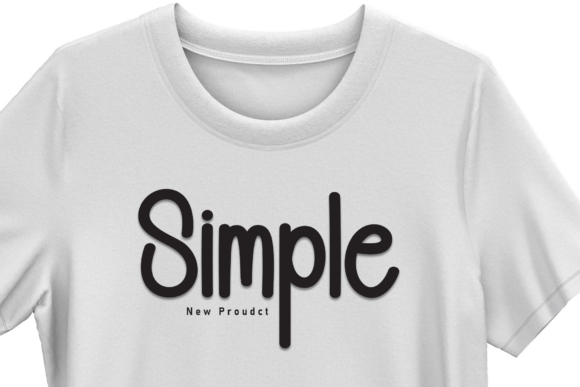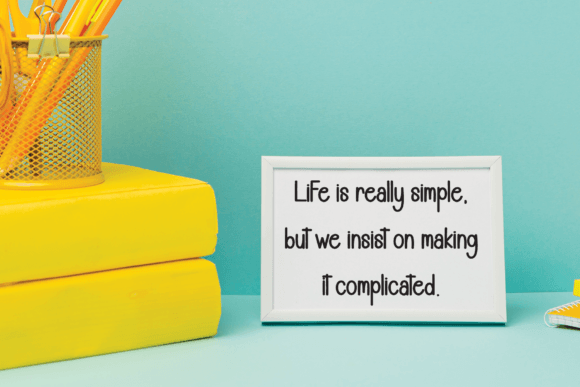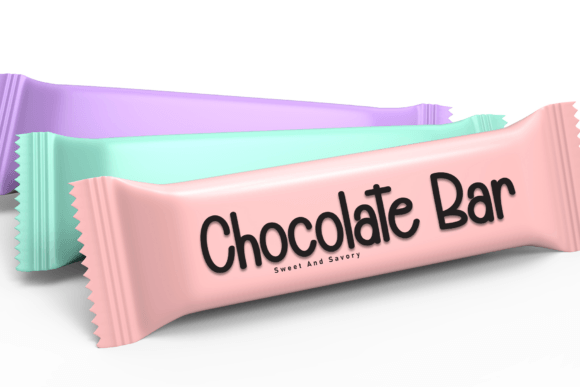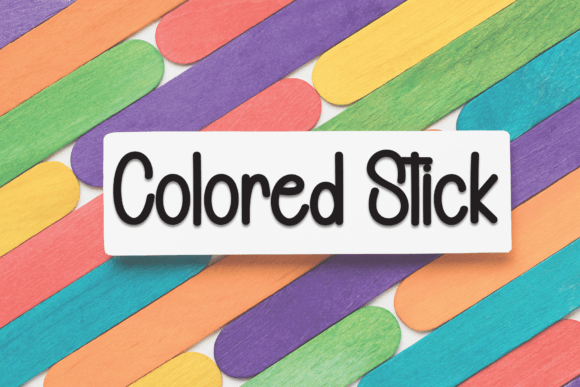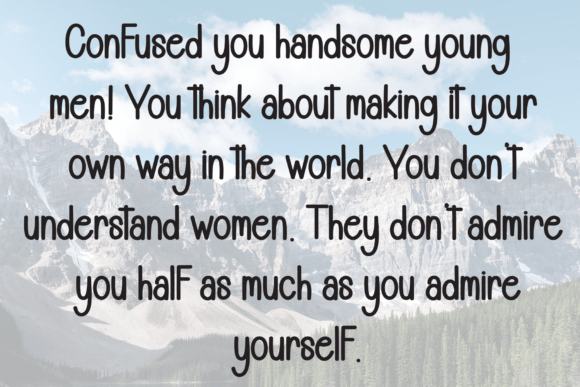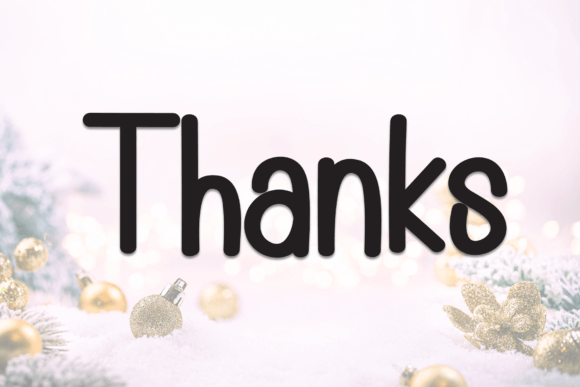
Introduction to Simpatic Christmas Font
Introducing a delightful, amicable handwritten display font.
This enchanting typographic marvel adds a joyous zing, making it the perfect choice for crafting wedding invitations, cards or any design longing for a playful dash of charisma Artfully charming and inviting, this font is your go-to for creative endeavors seeking a whisper of whimsy and a sprinkle of fun.
Key Features of Simpatic Christmas Font
Why Choose Simpatic Christmas Font?
Simpatic Christmas Font offers exceptional quality and versatility, making it a valuable addition to your design toolkit. Whether you’re creating for personal projects or commercial use, Simpatic Christmas Font delivers professional results.